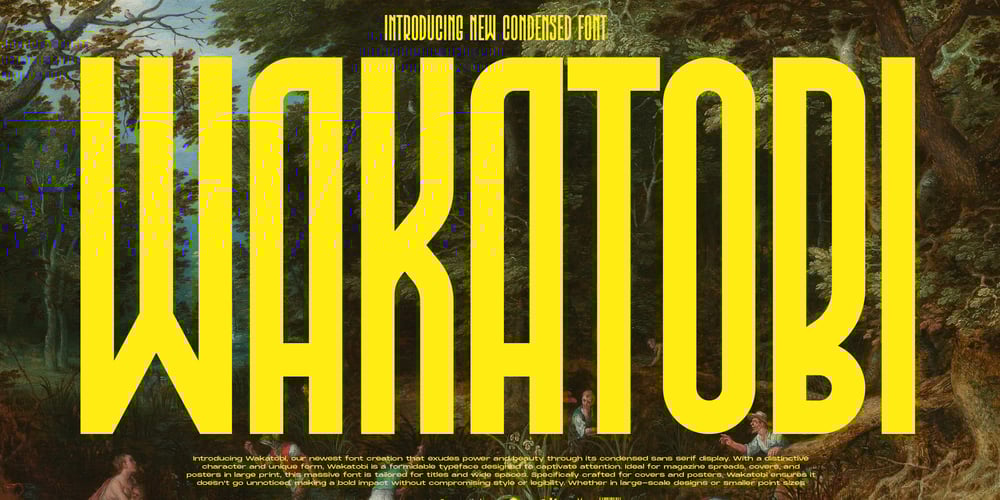
CCS Wakatobi Font Family was designed by Kurt Harahap and published by Creative Corner Studio. CCS Wakatobi contains 3 styles and family package options. Introducing Wakatobi, our newest font creation that exudes power and beauty through its condensed sans serif display. With a distinctive character and unique form, Wakatobi is a formidable typeface designed to captivate attention. Ideal for magazine spreads, covers, and posters in large print, this massive font is tailored for titles and wide spaces. Specifically crafted for covers and posters, Wakatobi ensures it doesn’t go unnoticed, making a bold impact without compromising style or legibility. Whether in large-scale designs or smaller point sizes, Wakatobi stands out, delivering a visual punch that resonates with both impact and elegance.